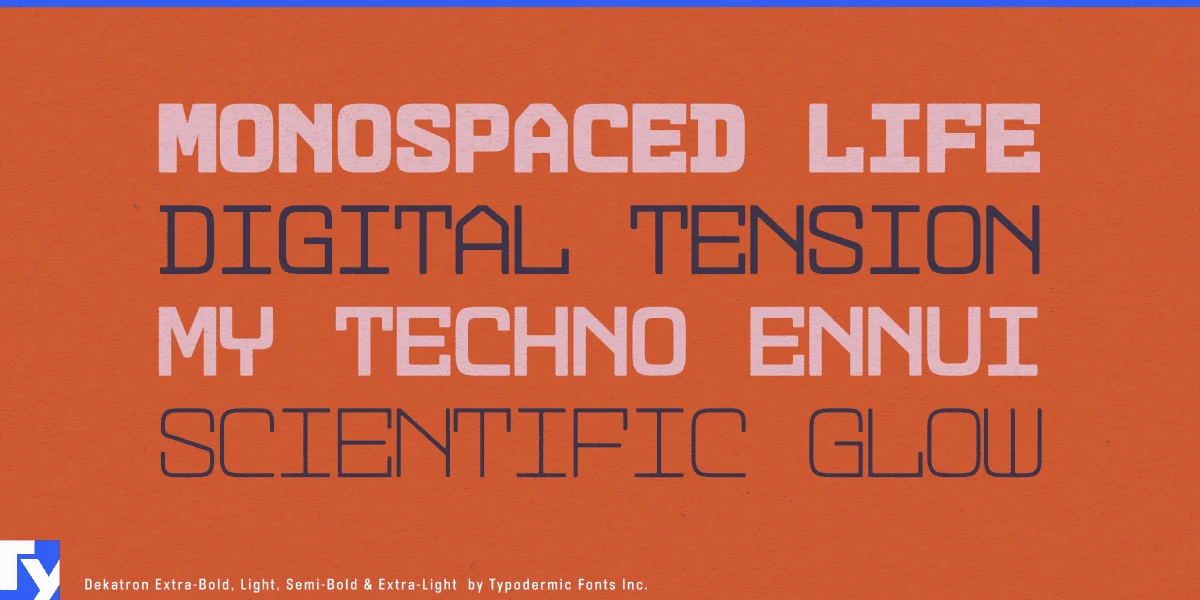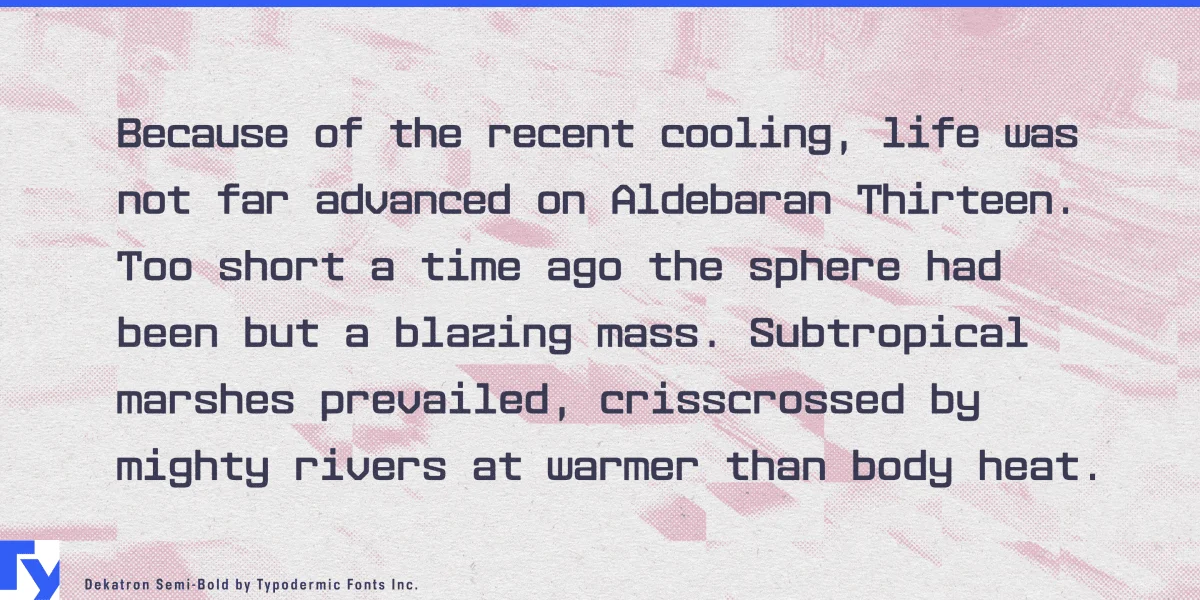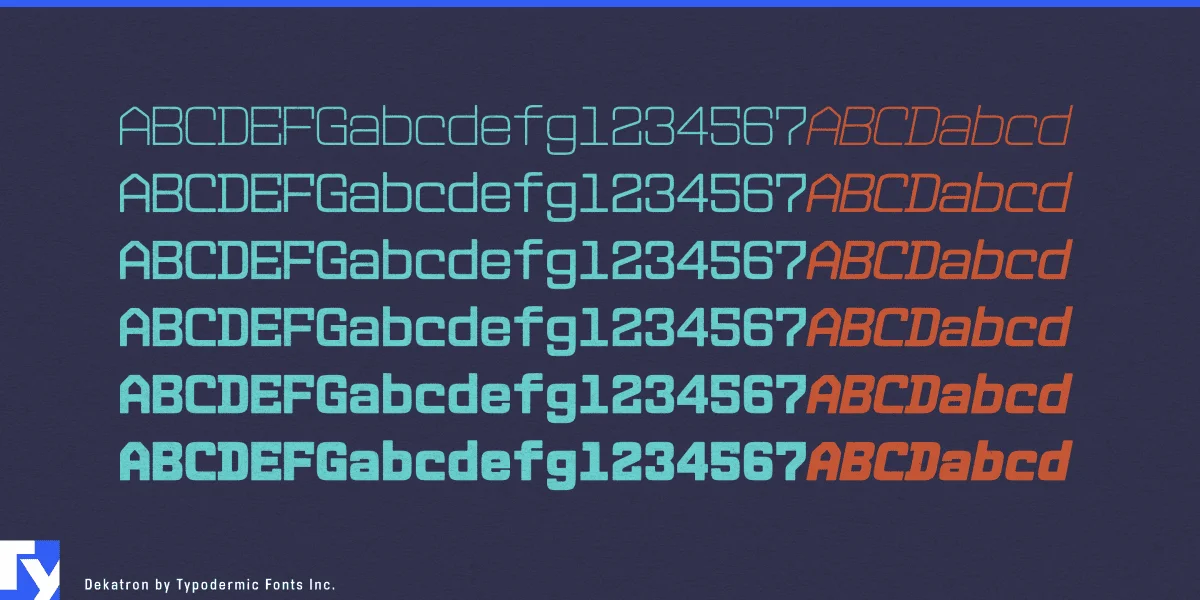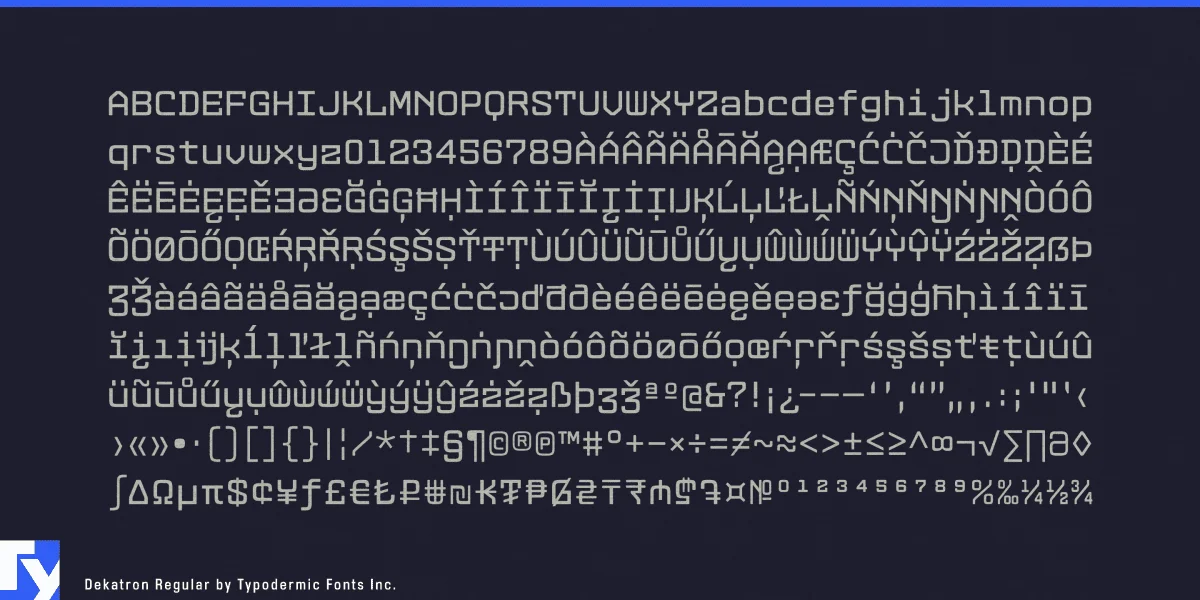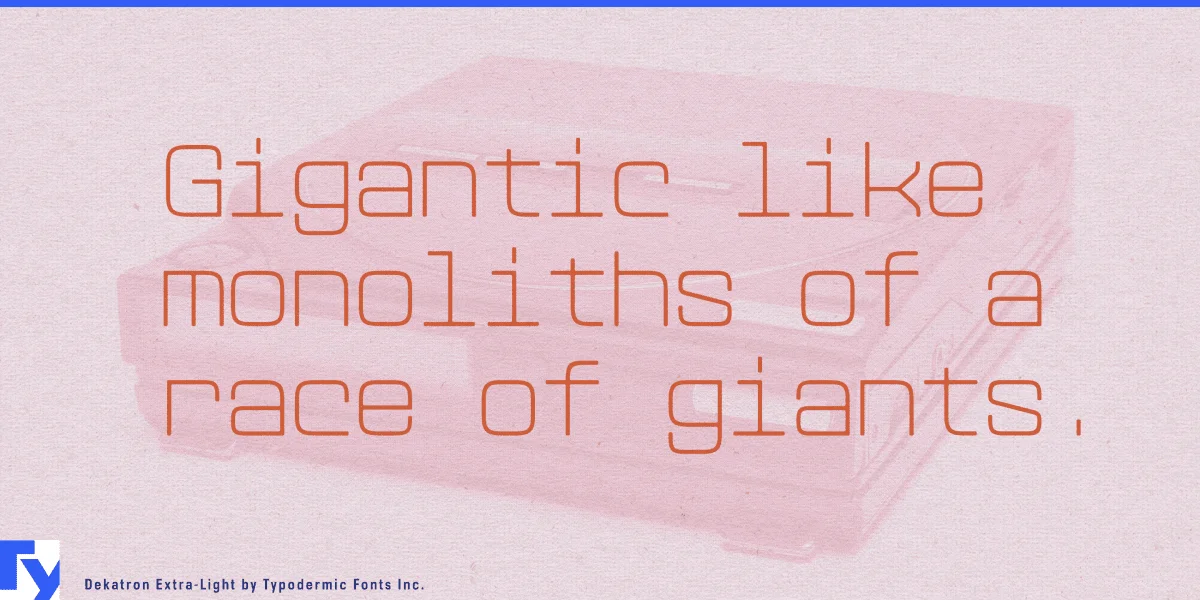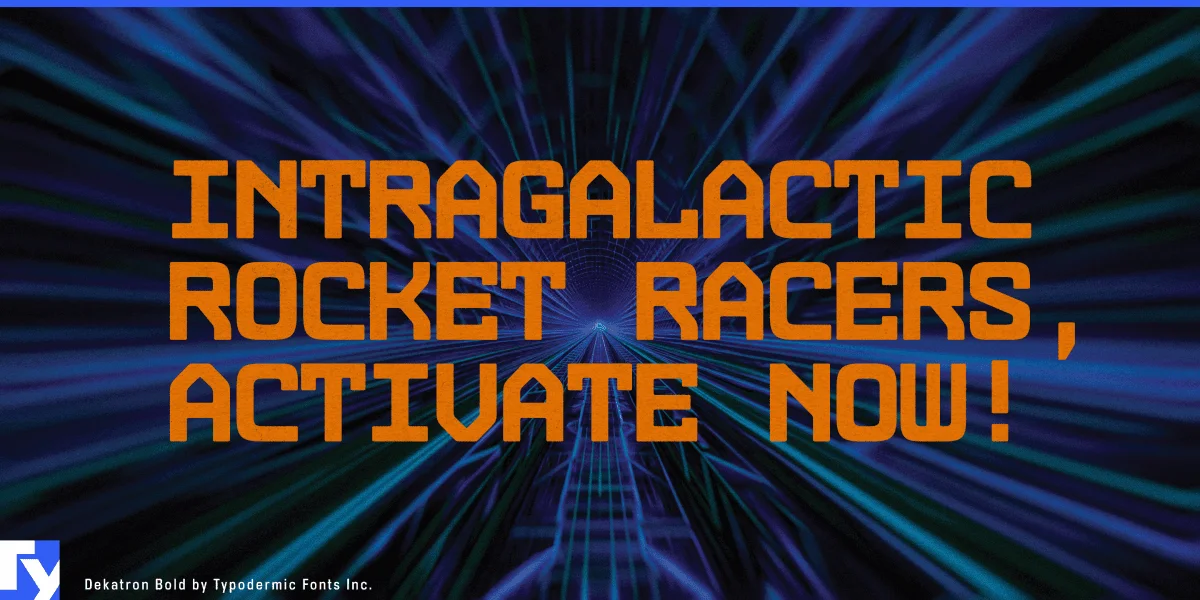
Dekatron is a monospaced typeface with the precision of a circuit board and the warmth of a human hand. Squarish forms, rounded ends, and superelliptical corners give it a voice that feels both technical and approachable.
Its fixed-width rhythm brings structure to code, tabular data, technical manuals, and other alignment-driven layouts, while the clean geometry also suits high-tech branding, sci-fi titles, and editorial design. Named after an early computing vacuum tube, Dekatron carries a quiet sense of calculation and control into modern typography.